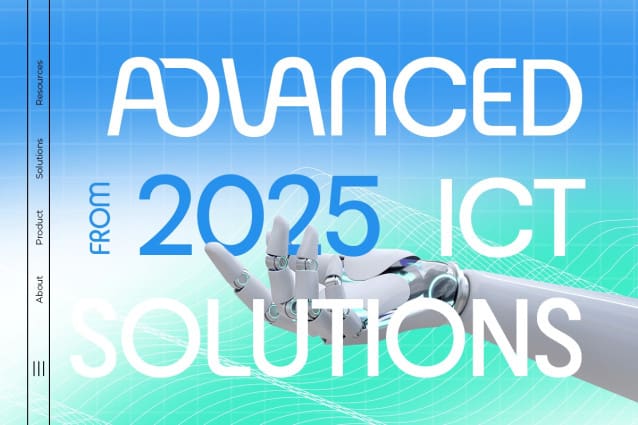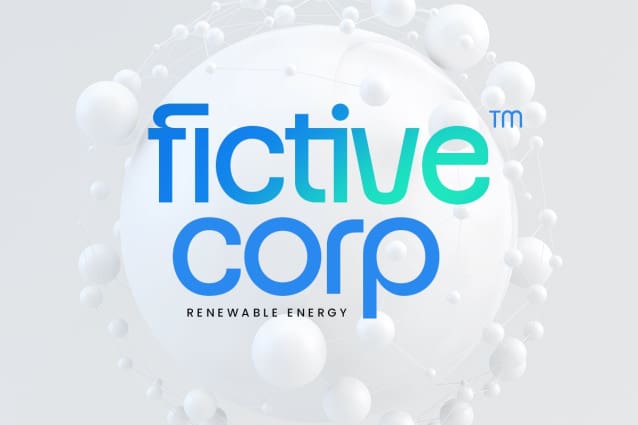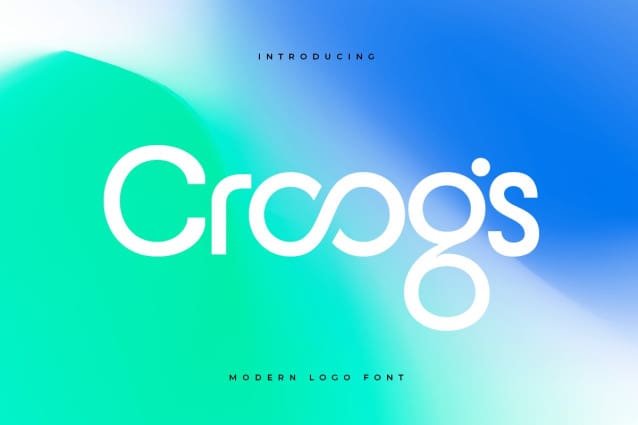
Croogs Font
Croogs Font is a modern corporate font designed to bring a sophisticated touch to your branding projects. Its clean and professional look is perfect for businesses looking to convey reliability and elegance in their visual identity. Whether used for logos, business cards or corporate presentations, Croogs ensures a polished and consistent appearance.
This font was created with versatility in mind, making it ideal for a range of applications from digital to print. Its bold characters and clean lines make it ideal for businesses looking to create a strong and memorable brand presence. Croogs Font is the perfect choice for those looking to combine modern aesthetics with professionalism in their business.
With its unique character set and modern design, Croogs stands out in the world of corporate fonts, offering the perfect balance of style and functionality for all your branding needs.